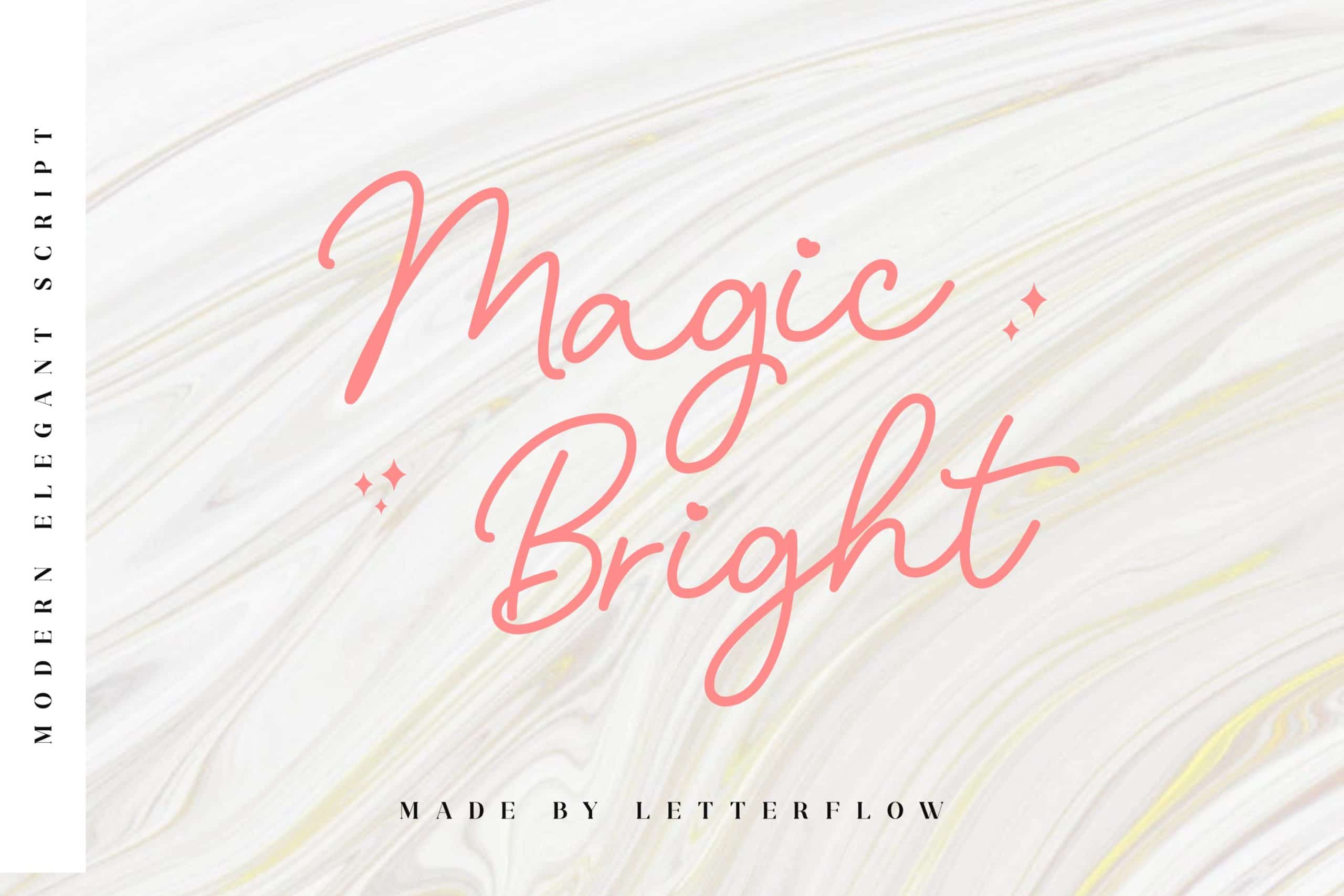
Magic Bright Font
Magic Bright is a stunning and comprehensive duo font (script and serif), ideal for giving your projects a branded but friendly feel. The two included styles can be combined together perfectly but are also beautiful on their own.